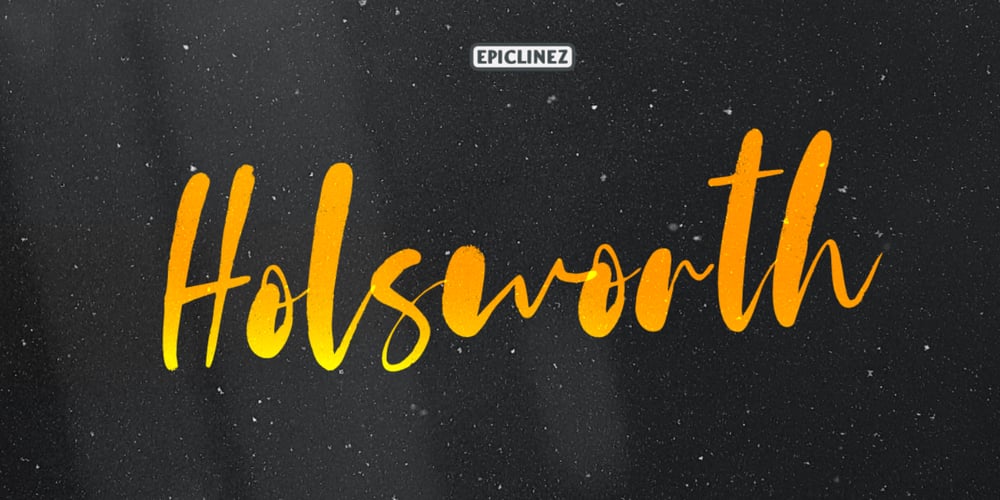
Holsworth Font Family was designed by Aldy Sidik and published by Epiclinez. Holsworth contains 1 styles and family package options. Holsworth is a handwritten script font with a natural texture style that will inspire any new design project with its authentic feel!. It’s suitable for logotype, t-shirts, posters, branding, advertising, and many more.